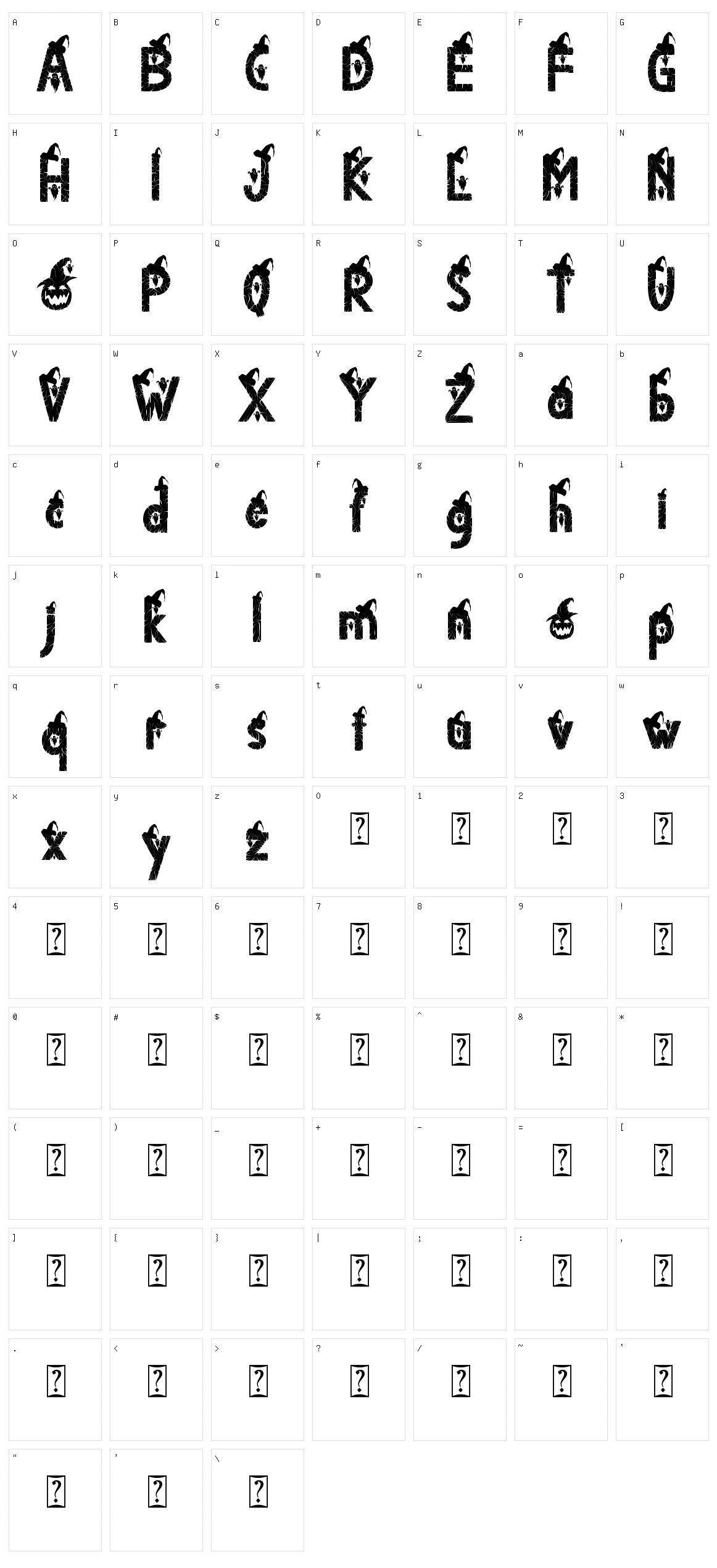
The free font Devil Scream is carefully designed by Yoga Letter, showcasing a thoughtful balance of creativity and usability and falls under the Halloween font style. When you download the ZIP file, it contains only 2308.93 KB of font files, making it lightweight and quick to download. Please review the license details below to understand permitted usage and distribution rights. If license information is not available, we recommend using this font for personal projects only or contacting the author directly for commercial usage permissions.